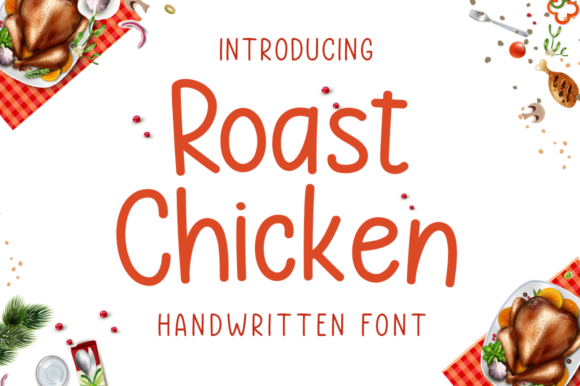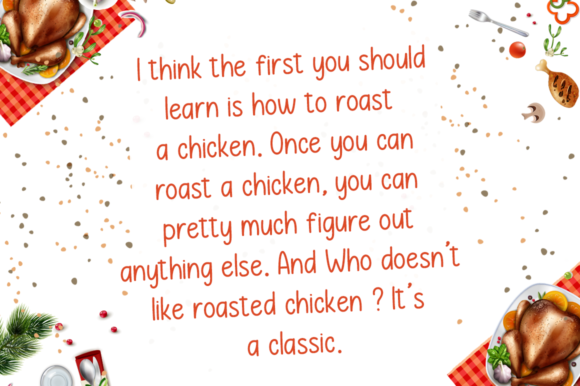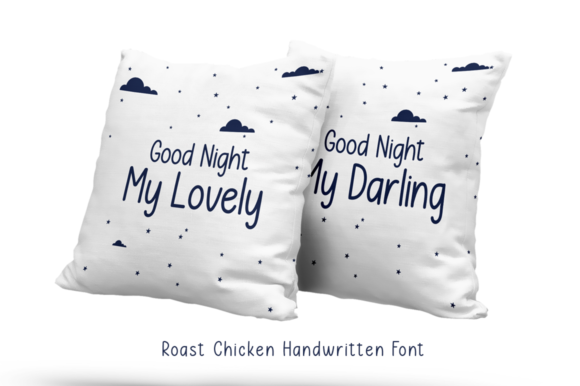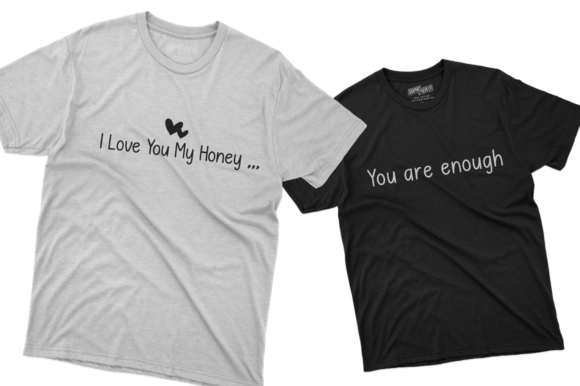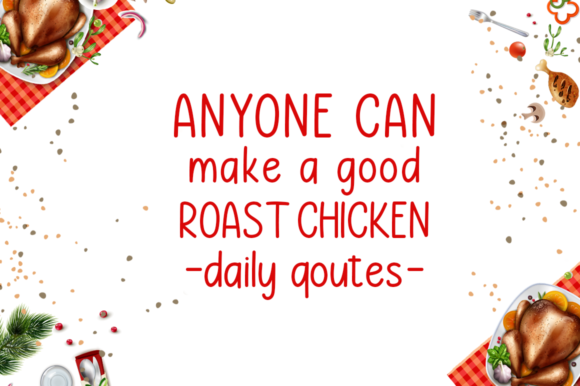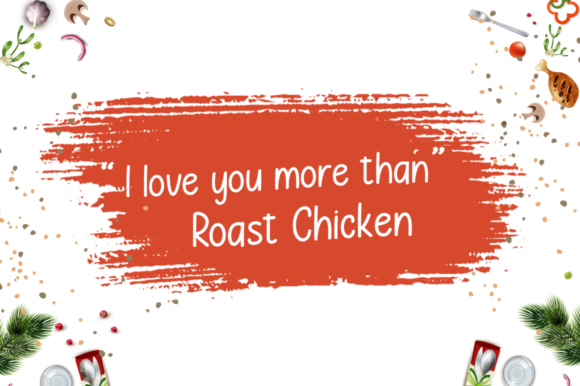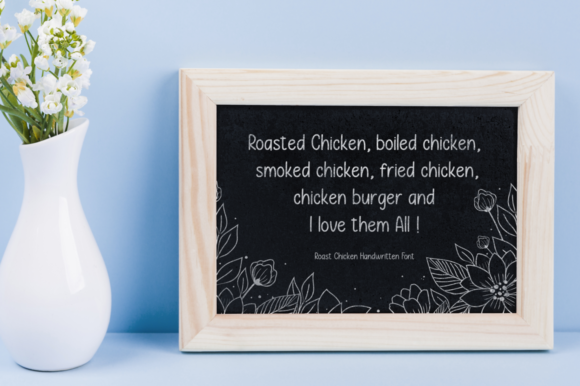
Roast Chicken Font
About Roast Chicken Font
Roast Chicken is a sweet ad natural handwritten font. It can effortlessly be matched to an incredibly large set of projects, so add it to your creative ideas and notice how it makes them stand out!